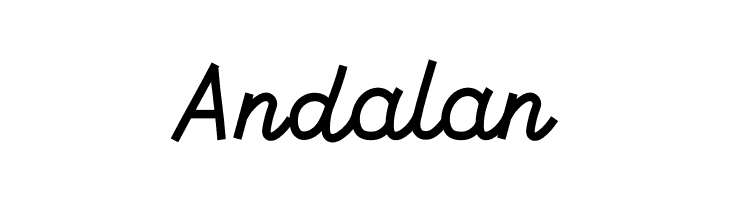
A modern, pixelated font composed of diamond-shaped dots, perfect for digital and retro designs.
A clean, modern monospaced font with uniform character width and minimalist design.
A sleek, modern font with elongated, narrow characters and a geometric style.
A bold, jagged font with sharp, brush-like strokes for a dynamic and aggressive look.
A bold slab serif font with strong, block-like serifs and a commanding presence.
A playful, flowing script font with elegant curves and a casual handwritten feel.
A bold, flowing script font with a dynamic, handwritten style.
A bold, playful font with exaggerated curves and sharp angles.
An elegant serif font with high contrast and sharp serifs.
A bold, decorative font with intricate Gothic-inspired details.
An abstract, hand-drawn style font with bold, irregular strokes and a graffiti-like appearance.
A geometric, grid-based font with a modern, abstract style.
A playful, handwritten font with tall, narrow characters and a whimsical style.
A bold, playful font with a hand-drawn, melted appearance.
A bold, geometric font with a modern, industrial style.
A tall, narrow, and modern font with sharp edges and geometric shapes.
A bold, angular font with a futuristic and dynamic design.
A playful, handwritten font with whimsical loops and curls.
A bold, expressive brush script font with dynamic strokes and a hand-drawn feel.
A cursive, elegant font with flowing strokes and a sophisticated style.
A playful, bold, and hand-drawn style with rounded edges and script-like flow.
A dynamic, cursive script font with a handwritten appearance.
A playful, modern handwritten font with flowing strokes and a whimsical touch.
A flowing, cursive font with elegant, connected letters and decorative flourishes.
A bold, flowing script font with a unique stencil effect.
A bold, expressive handwritten script with a textured, brush-like style.
A bold, brush script font with dynamic and expressive strokes.
A flowing, cursive font with elegant loops and a handwritten style.
A bold, geometric font with a modern and assertive style.
A bold, high-contrast font with sharp serifs and a dynamic style.
A bold, flowing script font with interconnected characters and a playful style.
A dynamic, cursive script font with a natural handwriting style.
A playful, casual handwritten font with smooth, flowing lines.
A bold, angular serif font with a striking and aggressive design.
A dynamic and flowing script font with elegant, expressive letterforms.